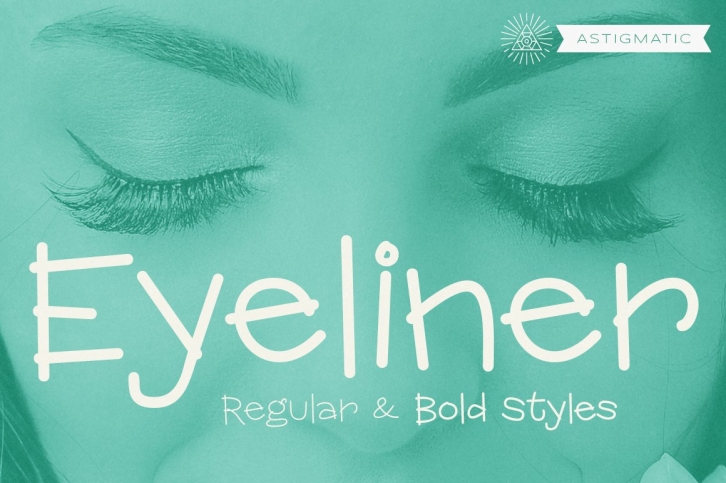
Eyeliner is a playful and offbeat stroke like handwriting typeface available in regular and bold weights. It was inspired by various vintage brochures from the 50's and 60's. It is a wide and wonderfully wonky looking lettering typeface built for wild and off-kilter purposes.
If you've been looking for a playful typestyle with a smooth pen look, the Eyeliner Family is what you've been looking for.